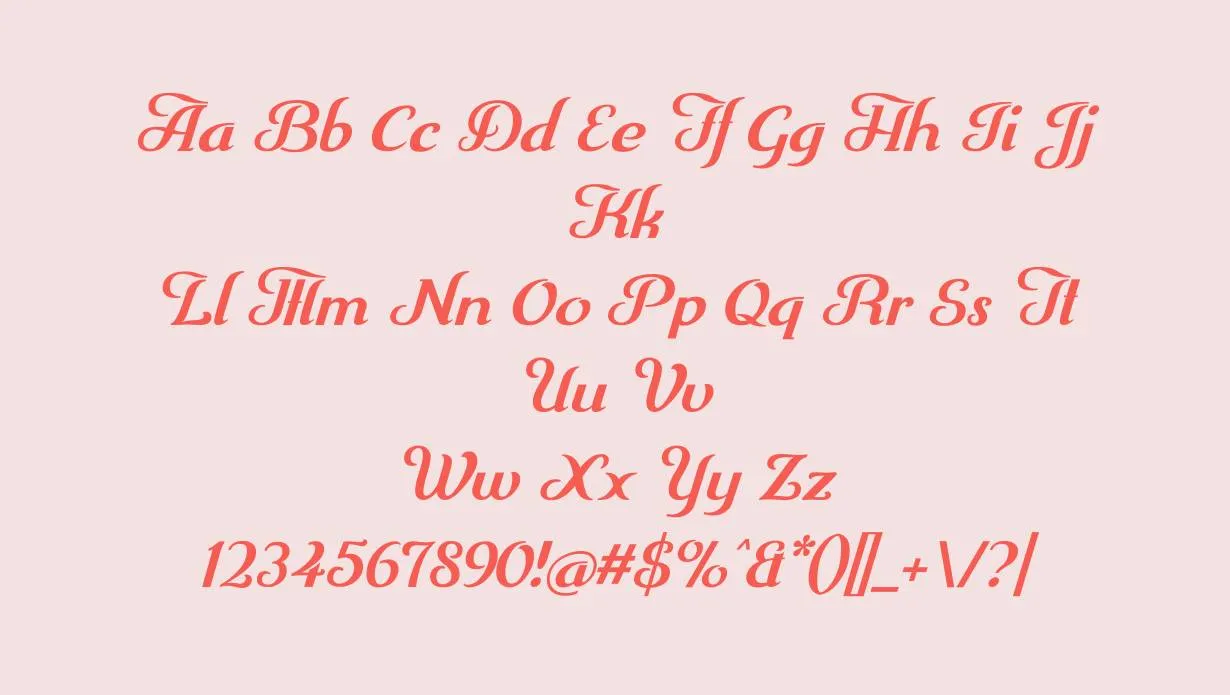
Trumpit Font has stylish characters and they are much similar to the Script font family. The characters of this typeface have beautiful strokes, high X-axis height, and negative spacing. This typeface was designed by Typesgal Foundry.
This typeface can pair up with various typefaces but for the best result, you should combine it with amasis font.
View of Trumpit Font